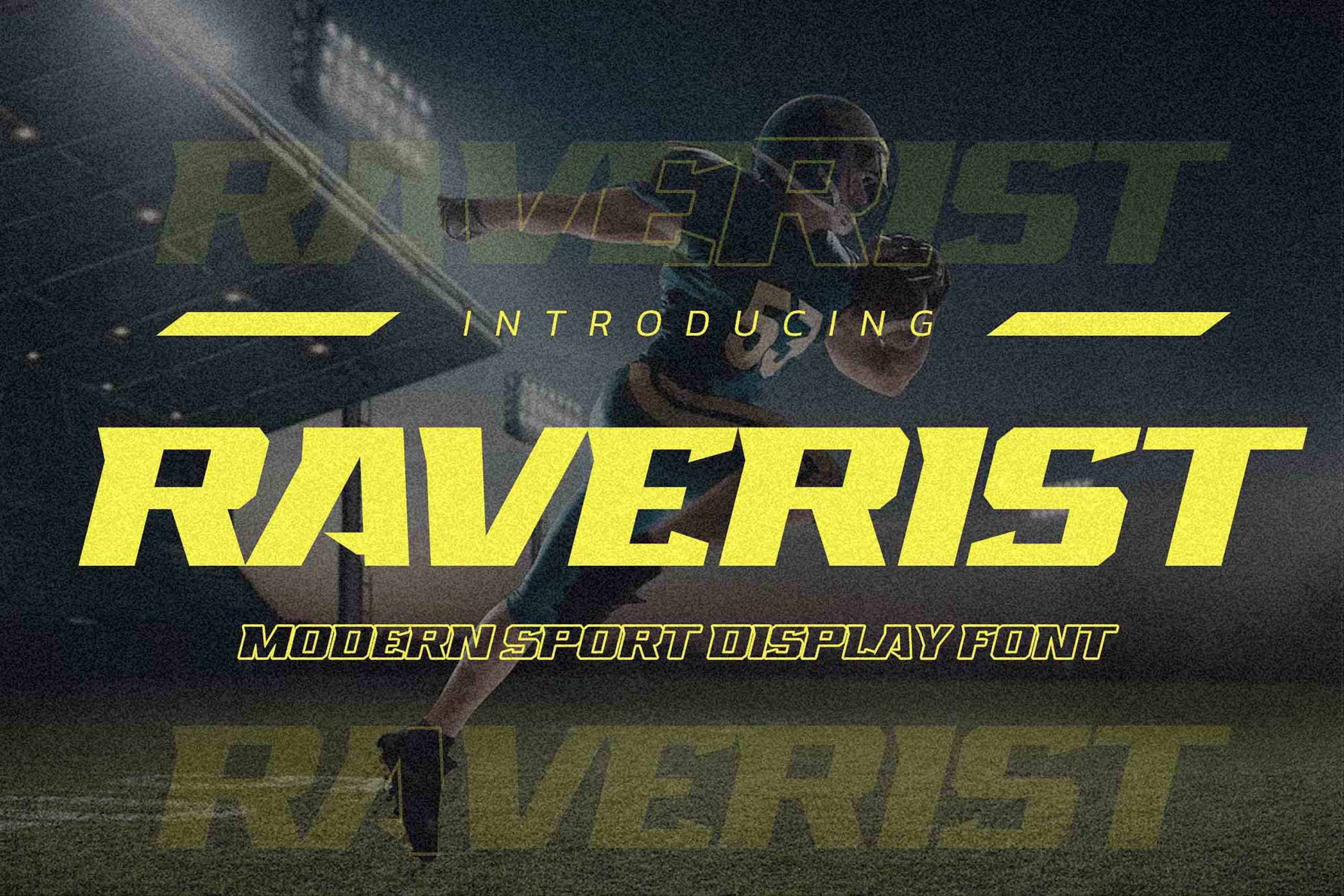
Raverist Font
Bring on our brand new product RAVERIST! It is an iconic modern sport Display Font featuring Textured Natural Style font with classy and clear characteristics, ideal for logos and printed quotes as well as headers, letterheads, posters packaging product. RAVERIST will add flair and class to your next project whether that means logos or printed quotes! It is sure to stand out against its competition and bring new dimension.
Ideal for wedding invitations, labels, packaging and special events – this text boasts a more casual yet authentic appearance.
Raverist Display Font